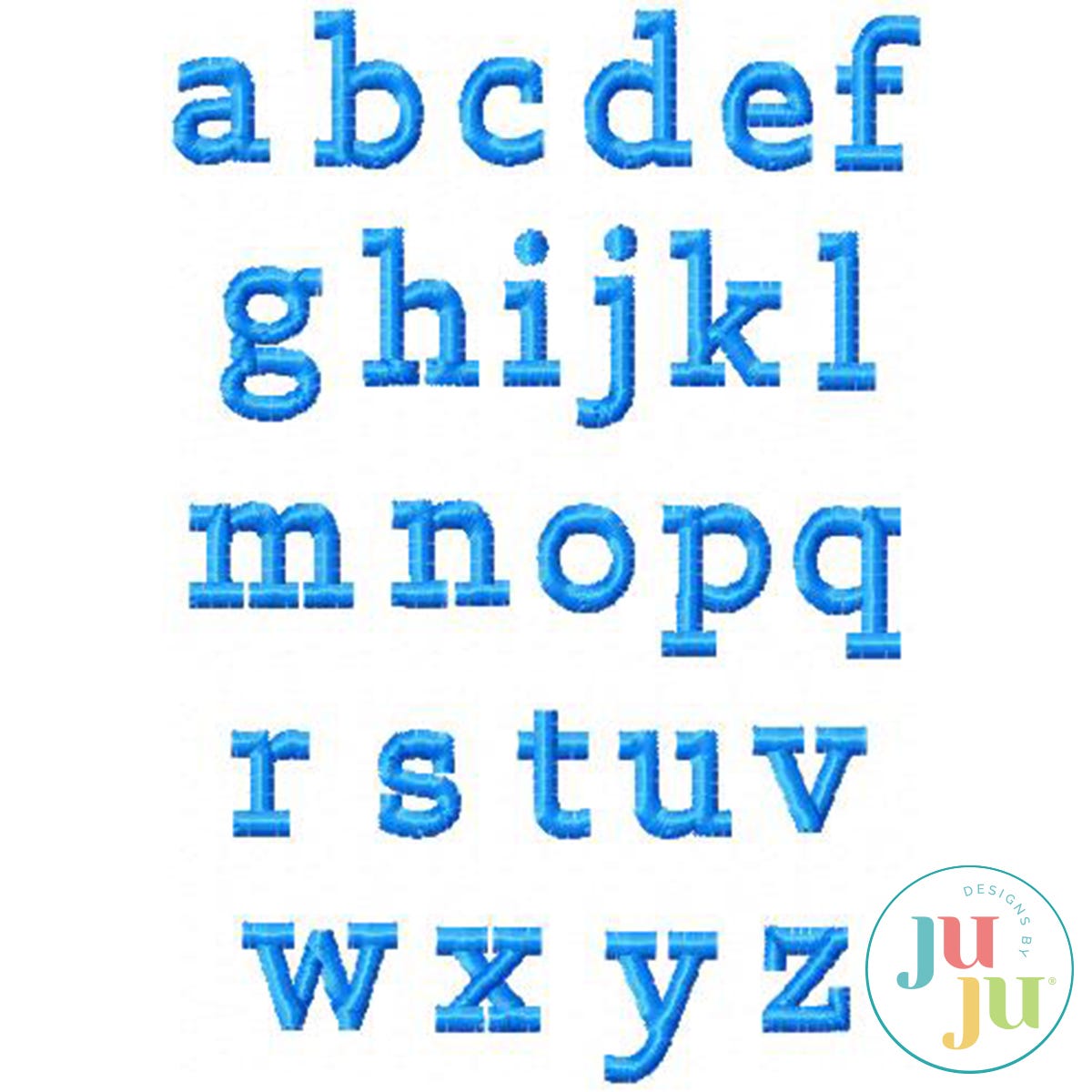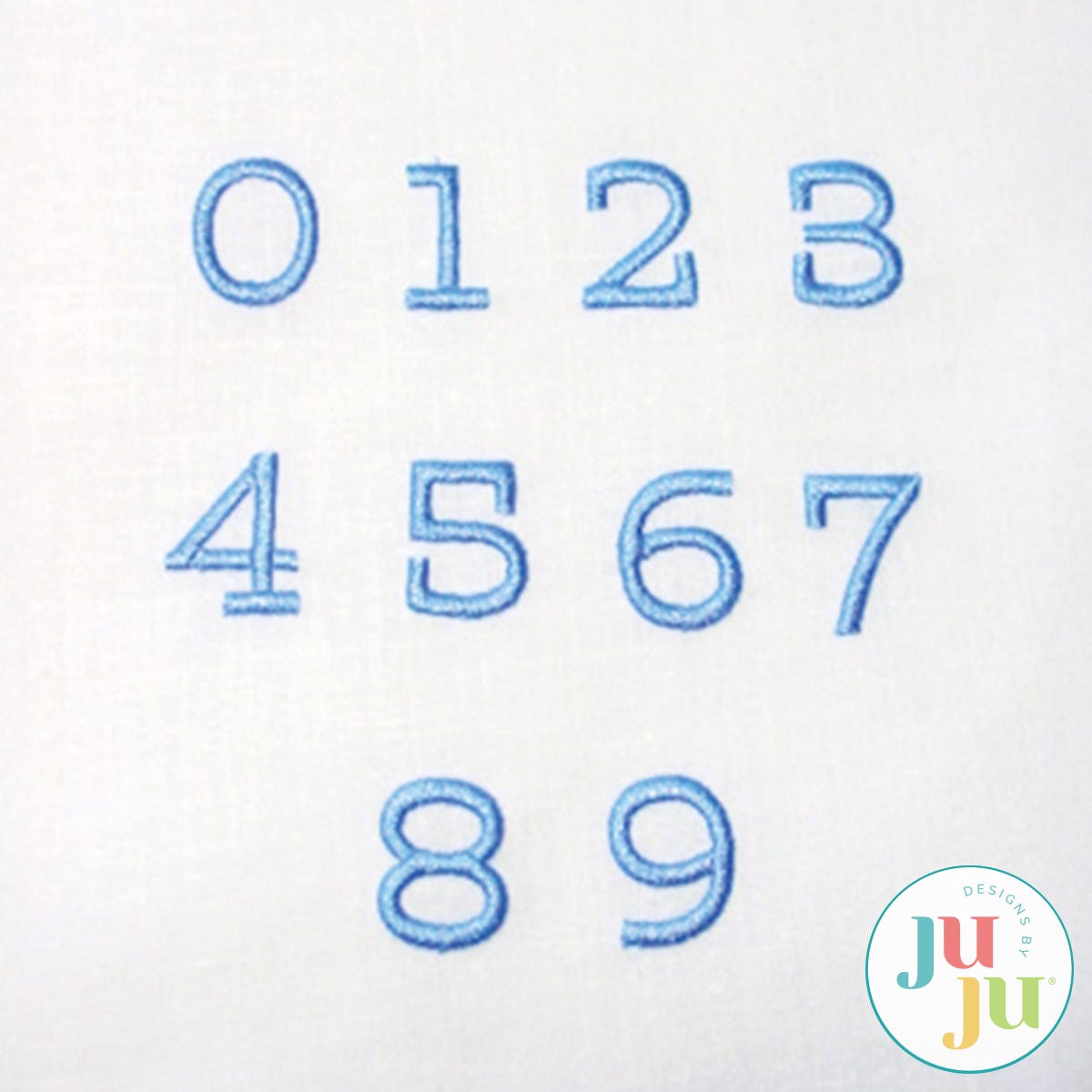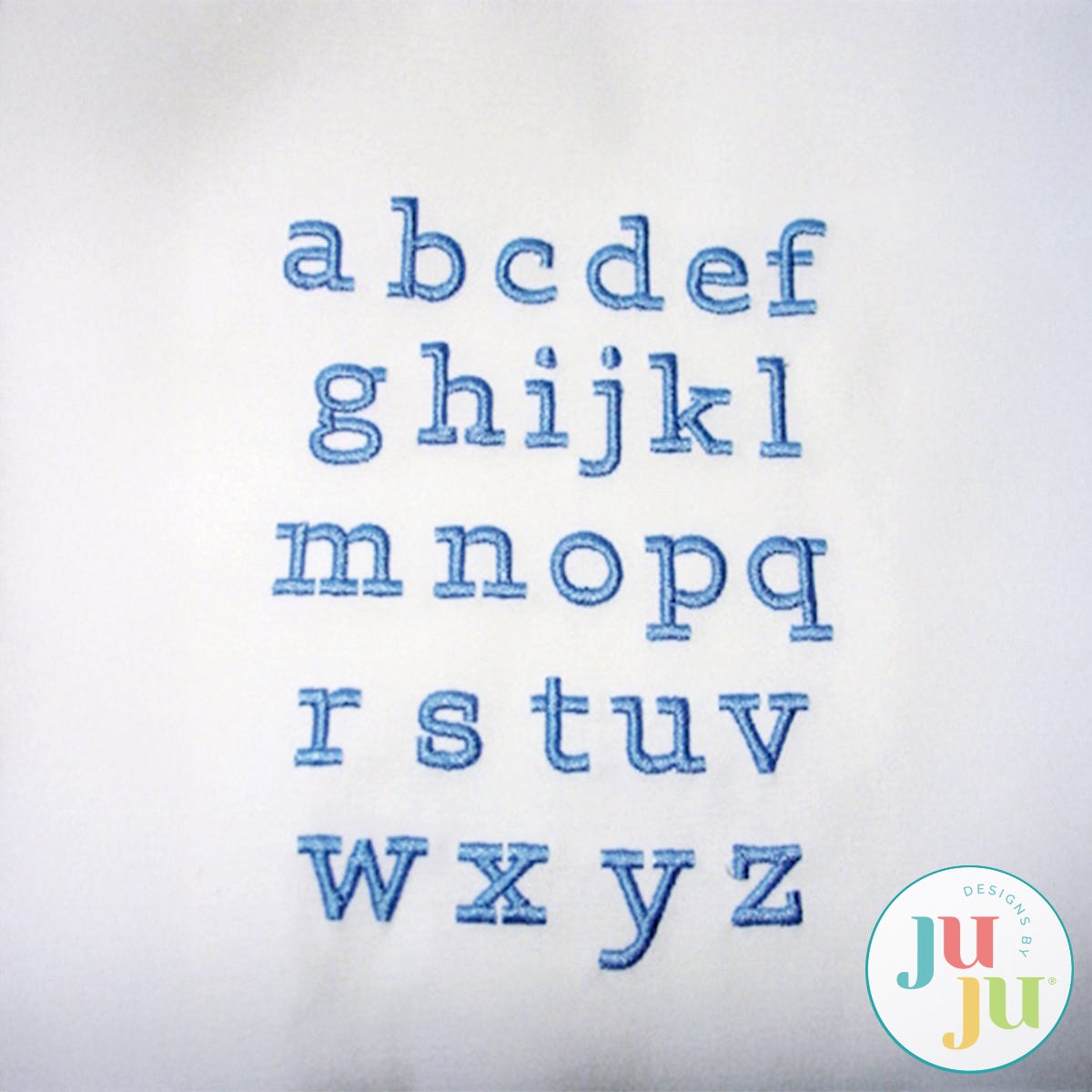
Classic Block Satin Stitch Embroidery Font by Oma's Place
When you need a small, noticeable initial or name on your embroidered items, this is the alphabet to use. It stitches out smoothly and quickly. Each letter is approx. .75" tall. Alphabet comes with upper and lower case letters, as well as numbers 0-9.